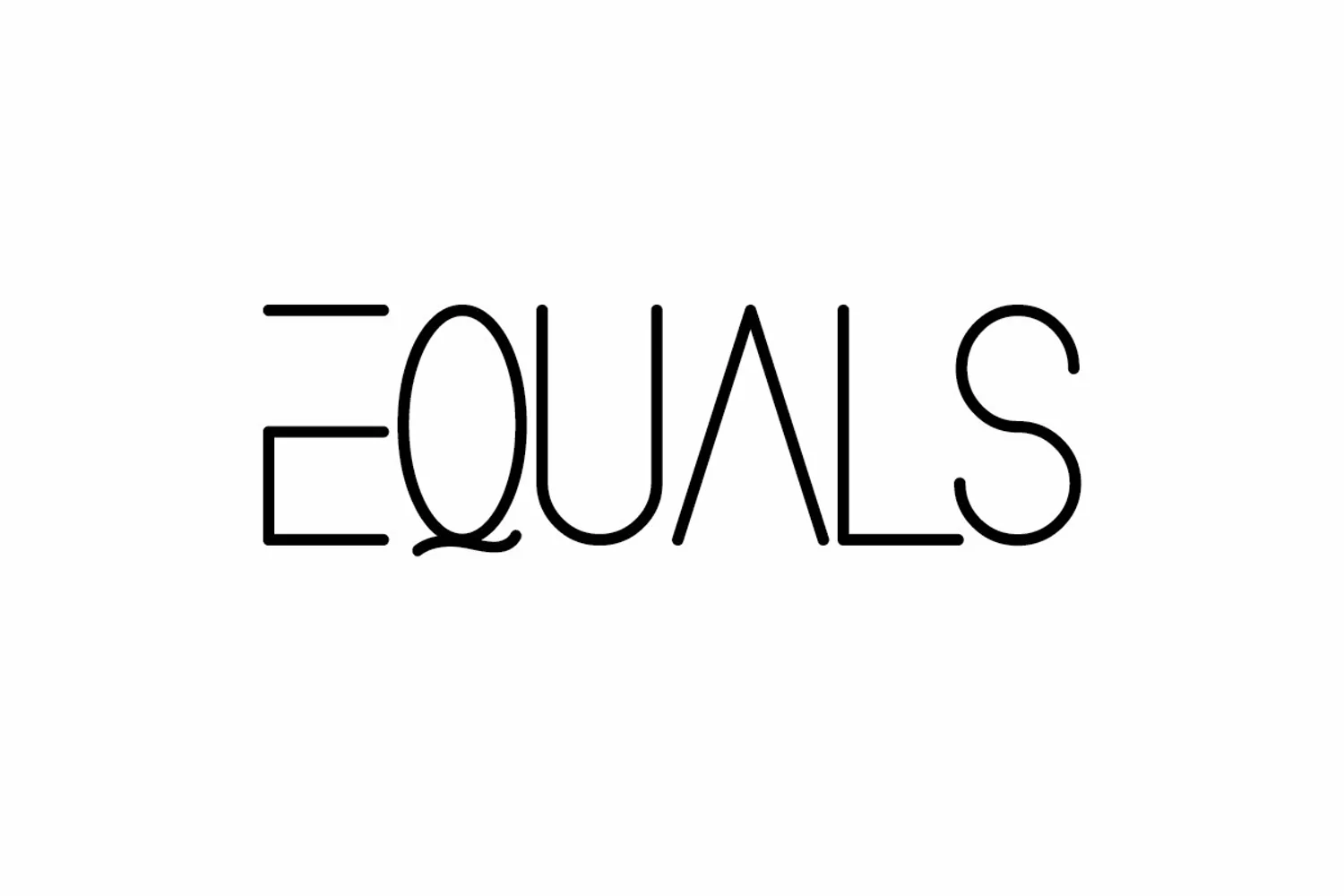
Equals
Equals Font is a futuristic display font family originally designed by NihStudio. It will be suitable for many business and industries including sports, technology, startup, gadget, games, movies etc On the package you will get :
Equals Font was handcrafted here in our Studio , Indonesia. The font will be great for any projects including : branding, logo, stationery, business card, signage, flyer, brochure etc. It comes with awesome characters and ligatures to make it flowless, stunning and unique.